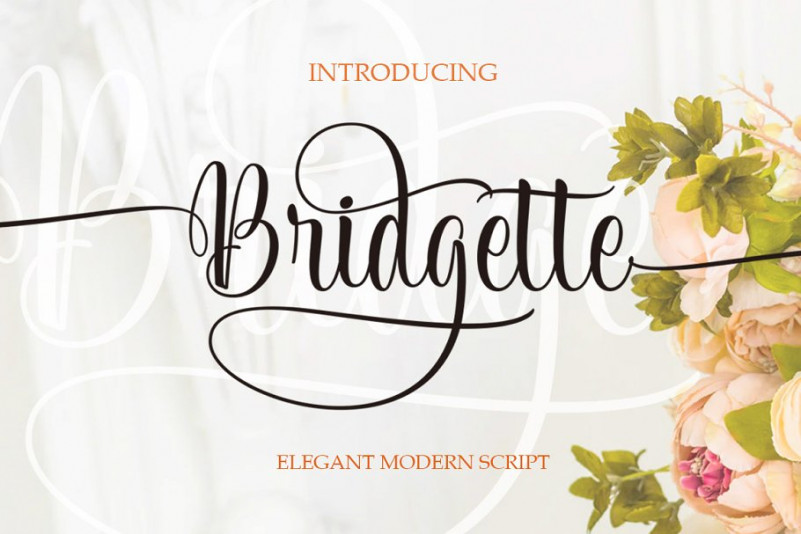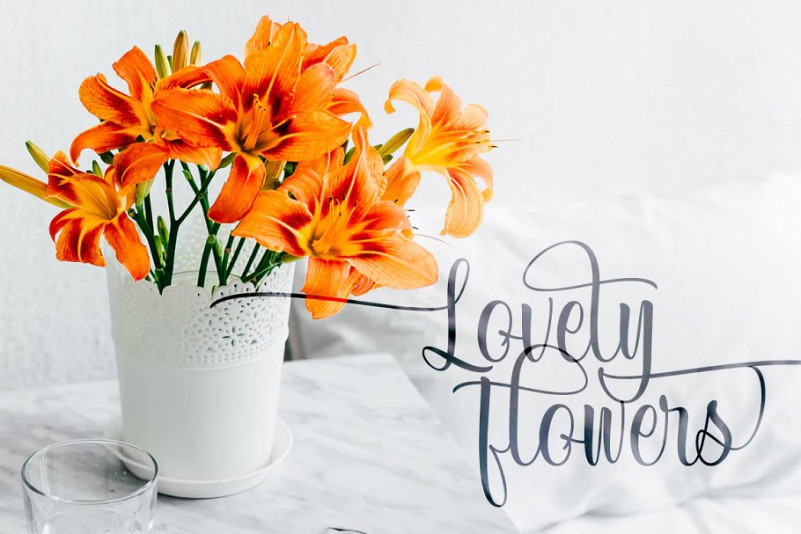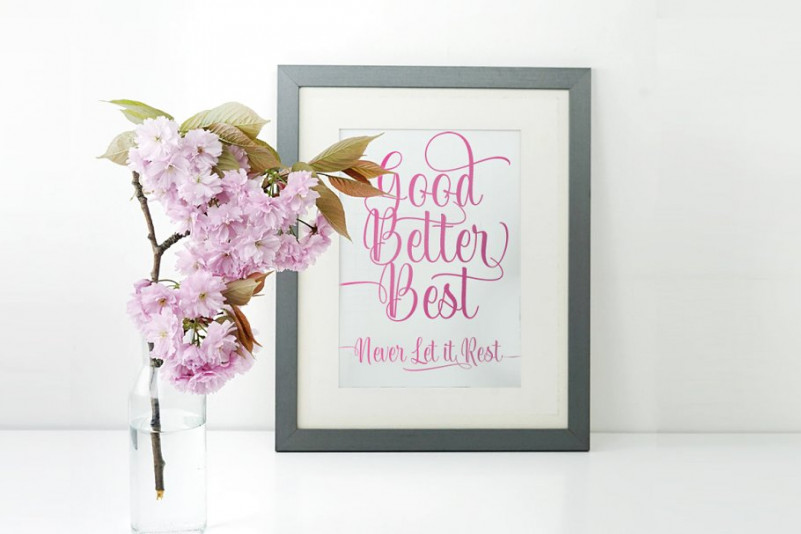
Bridgette Font
Bridgette Elegant Script can used for various product design such as the title, signature, logo, correspondence, wedding invitations, letterhead, signage, labels, newsletters, posters, badges, etc.